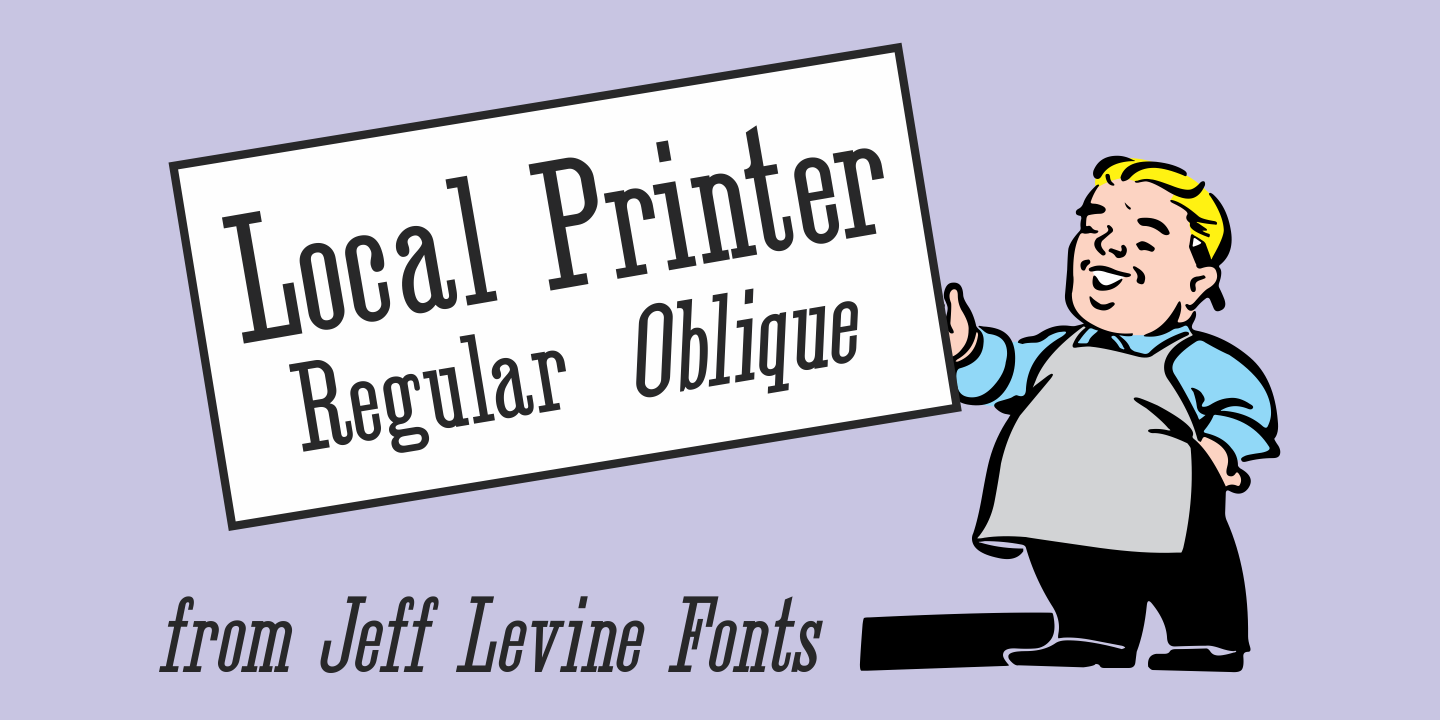
Local Printer JNL Font Free Download is a charming and authentic typeface, heavily inspired by vintage wood type from the mid-19th century. This font is perfect for design projects that aim to evoke a sense of nostalgia, handcrafted quality, or historical authenticity. Imagine it gracing vintage-inspired signage, rustic craft brewery labels, classic book covers, or charming retro advertisements. Its distinctive character also makes it ideal for historical documentaries, boutique branding, and any project that benefits from a touch of old-world charm and traditional print aesthetics.
What makes Local Printer JNL Font truly exciting is its ability to instantly convey a sense of history and warmth. It captures the essence of early printing presses, offering a sturdy yet subtle appeal that is both legible and characterful. This isn't just another slab serif; it's a carefully recreated typeface that brings the unique irregularities and charm of wood type into modern digital design. Designers will appreciate its strong visual presence and how it can effortlessly add depth and a time-honored feel to any composition, making it a perfect choice for designs that seek to connect with the past while maintaining contemporary relevance.
The Local Printer JNL Font family, designed by Jeff Levine, typically focuses on providing the core styles that embody its vintage inspiration. You'll generally find both Regular and Oblique (italic) versions, offering a foundational set for versatile use. While it may not boast a vast number of weights like some contemporary sans-serifs, the deliberate simplicity and historical accuracy of its available styles ensure consistency and effectiveness. This focused approach means that Local Printer JNL Font Free Download delivers its unique, authentic aesthetic perfectly, whether used for headlines that need an old-school punch or for text passages where a touch of period charm is desired.